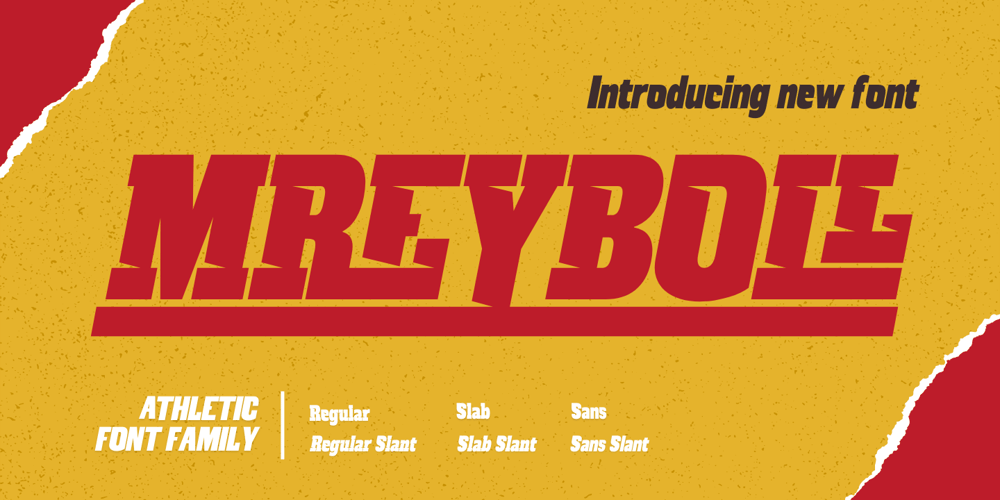
Mreyboll Font Family was designed by Rozikan and published by Twinletter. Mreyboll contains 6 styles and family package options. The ideal display font for sporting goods is MREYBOLL. This amazing sports typeface is available in a range of styles, and the little contemporary cutouts that are highlighted at each corner give it a dynamic tilt. Perfect for games, titles, sports designs, logos, and car projects. This typeface can also be used for contemporary text or a monogram. Unlike other sports fonts, Mreyboll is superior and has a highly manly, crisp feel that gives it more force and speed effect. Check it out and purchase it soon for a distinctive design experience. It was created to be a strong, dynamic font with a little different font style.What’s Included :- File font- All glyphs Iso Latin 1- Alternate, Ligature- Simple installations- We highly recommend using a program that supports OpenType features and Glyphs panels like many Adobe apps and Corel Draw so that you can see and access all Glyph variations.- PUA Encoded Characters – Fully accessible without additional design software.- Fonts include Multilingual support